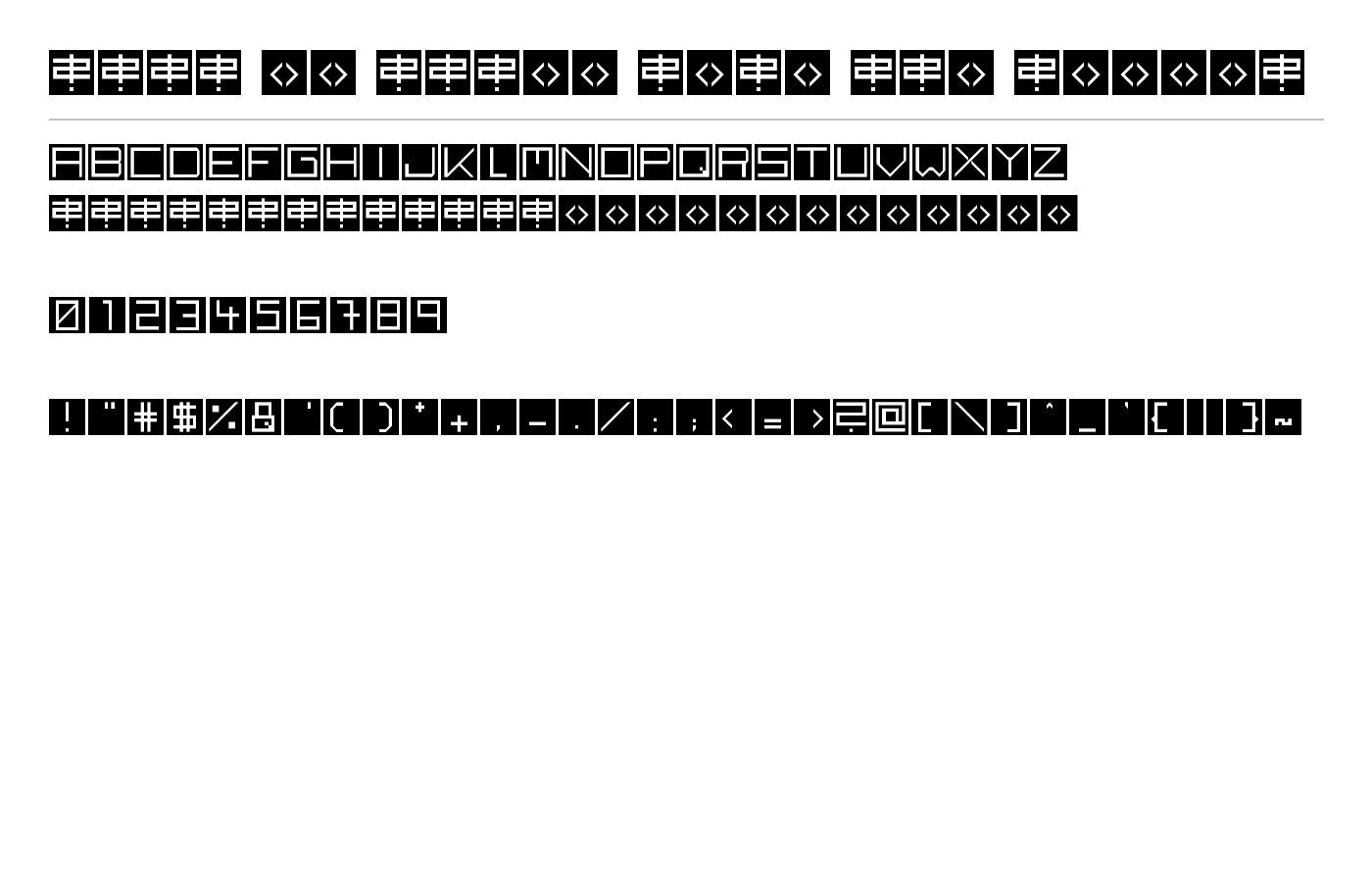
back to heavy coat fat ground is a bold, geometric sans serif font characterized by its heavy weight and square-shaped letterforms. With a high x-height and uniform stroke thickness, it offers a modern, tech-inspired style that feels strong and structured, making it ideal for headlines, logos, and designs needing a futuristic or industrial vibe. Its unique, boxy appearance commands attention and works best in display uses where clear, impactful communication is essential.
| Font family | back to heavy coat fat ground Font |
| Designer | eM-Vii |